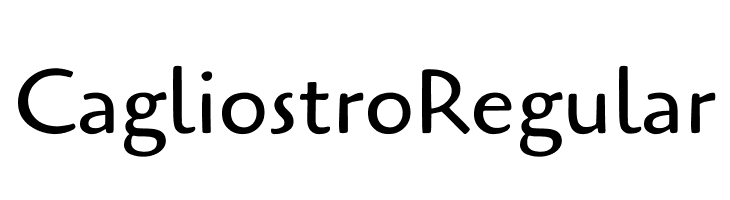
A bold, assertive typeface with thick strokes and a strong presence.
( Fonts by Pizzadude )
A playful, bold font with a hand-drawn, organic style.
( Fonts by fana merah jambu - Personal-use only. For commercial use please contact owner. )
A playful, bubbly font with a hand-drawn feel, perfect for creative projects.
( Collection of Korean web fonts - Personal-use only. For commercial use please contact owner. )
A bold, modern sans-serif font with excellent legibility and uniform stroke width.
A bold, expanded, and italic font with a modern and dynamic style.
A bold, expanded italic font with smooth, rounded strokes for a dynamic and friendly look.
( Fonts by Manfred Klein - manfred-klein.ina-mar.com )